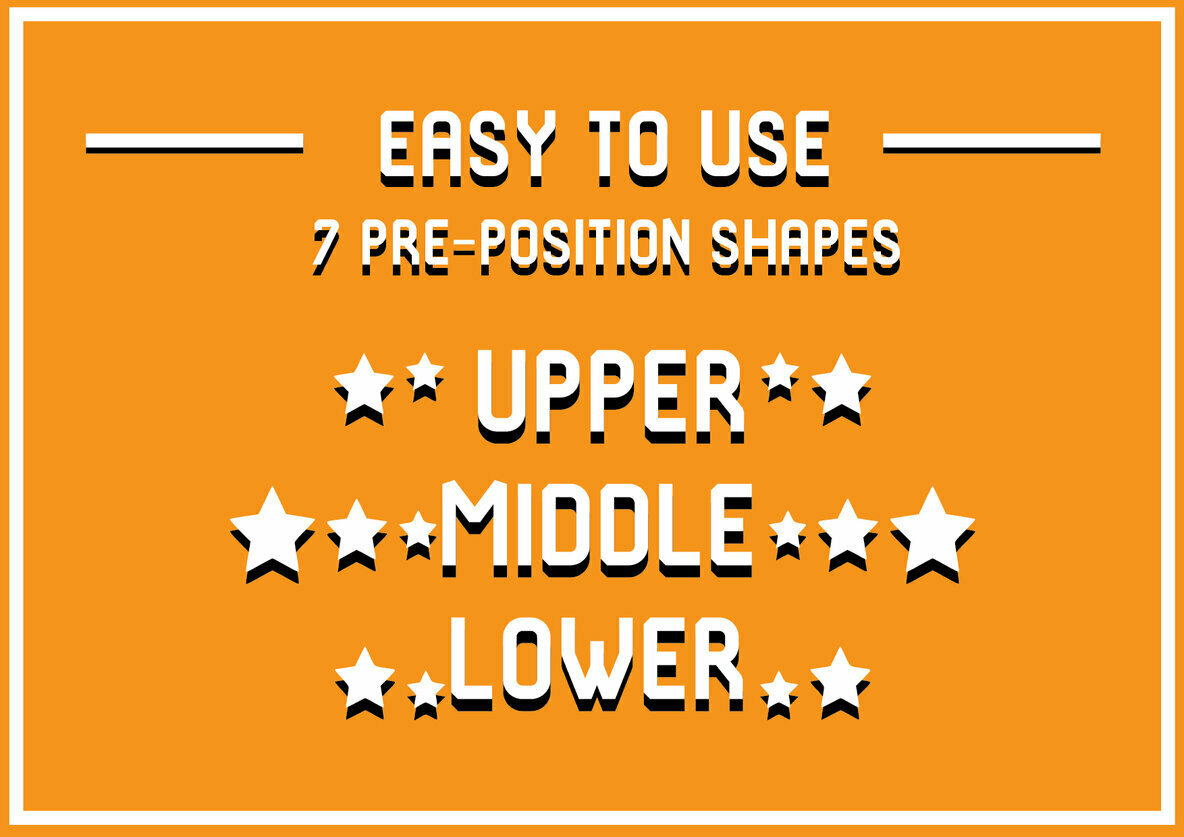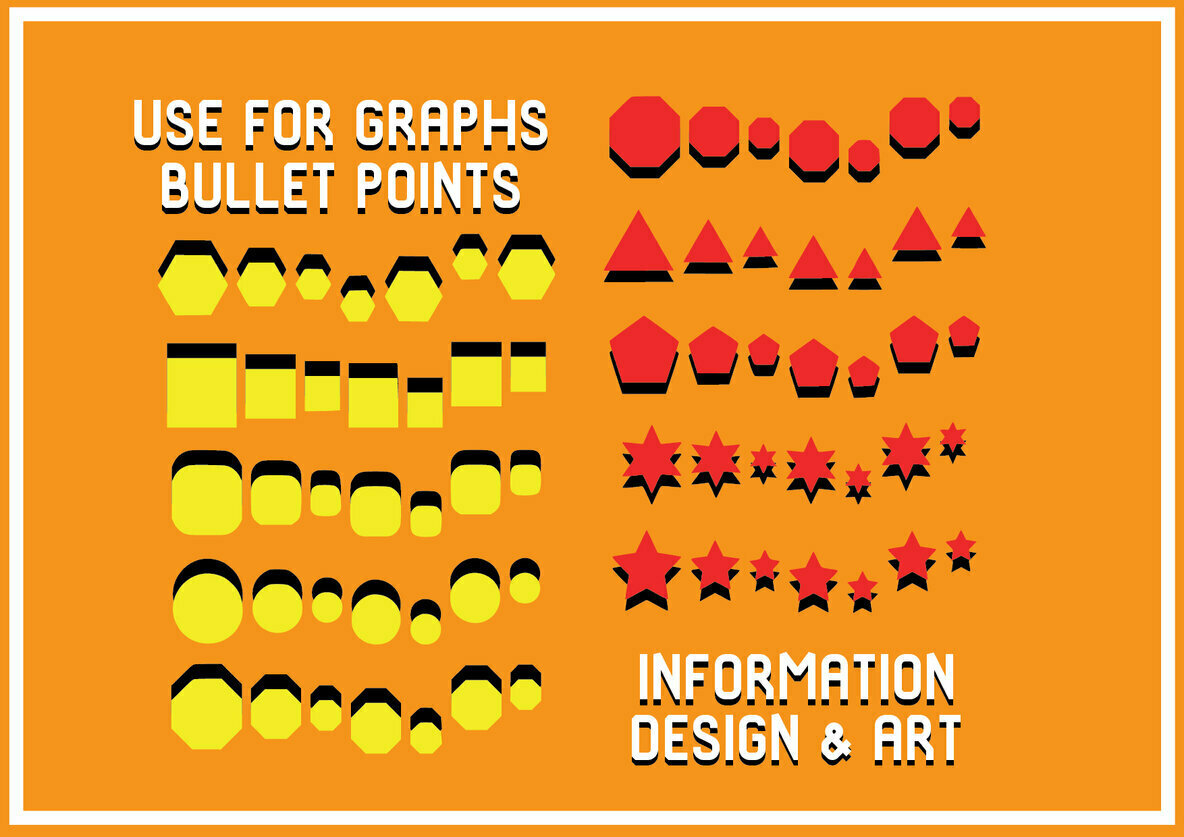
Very Useful Font
Very Useful
Very Useful is a unique dingbats font that brings together a big variety of bold shapes! Square, Circles, Triangles, Stars, Hexagon, Polygon and more!